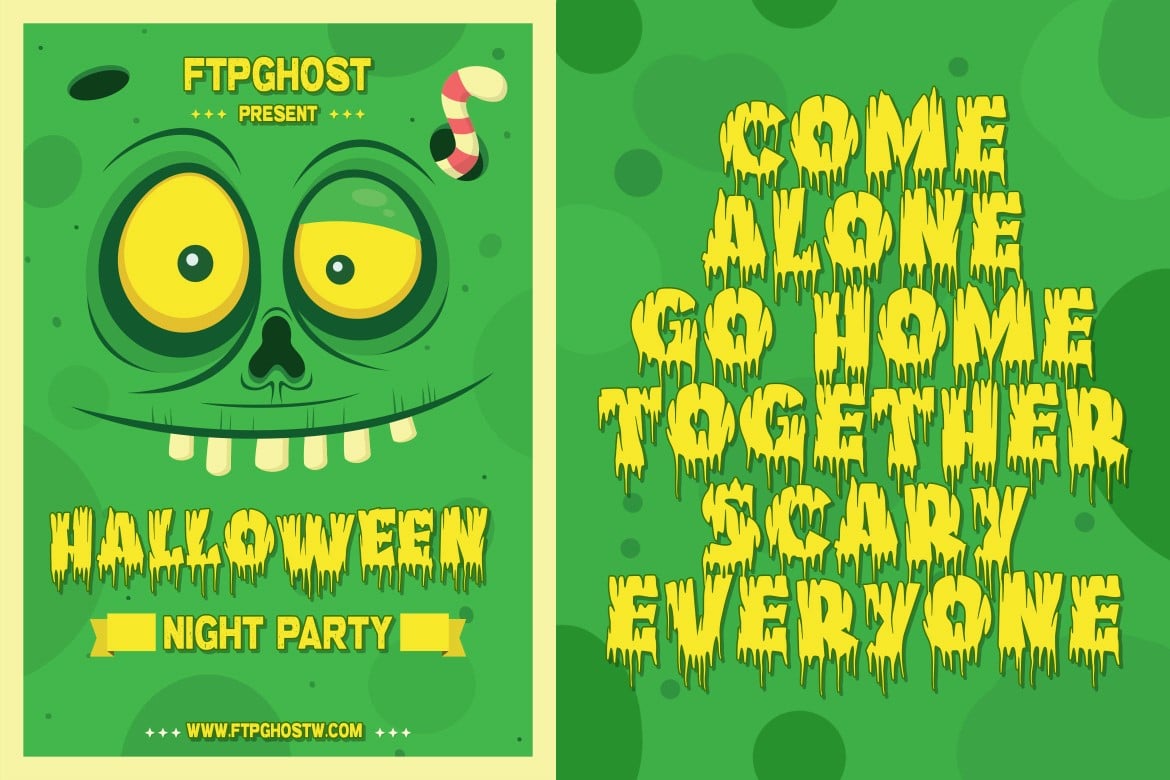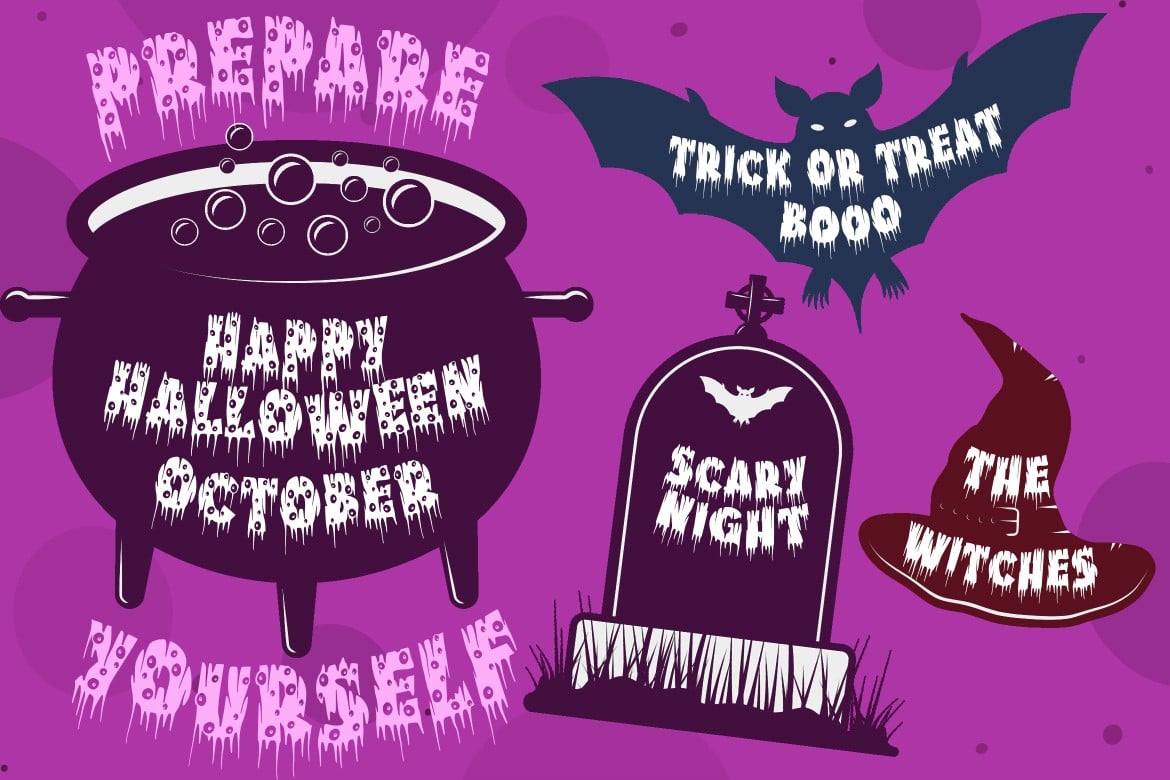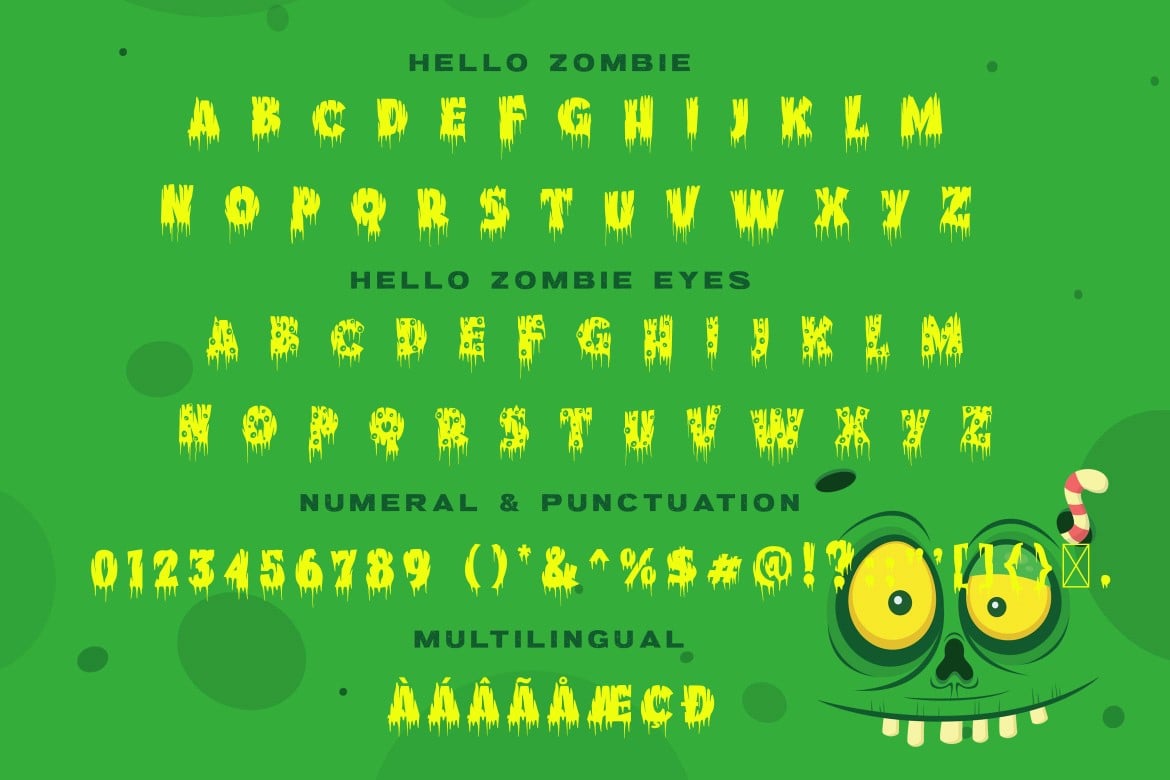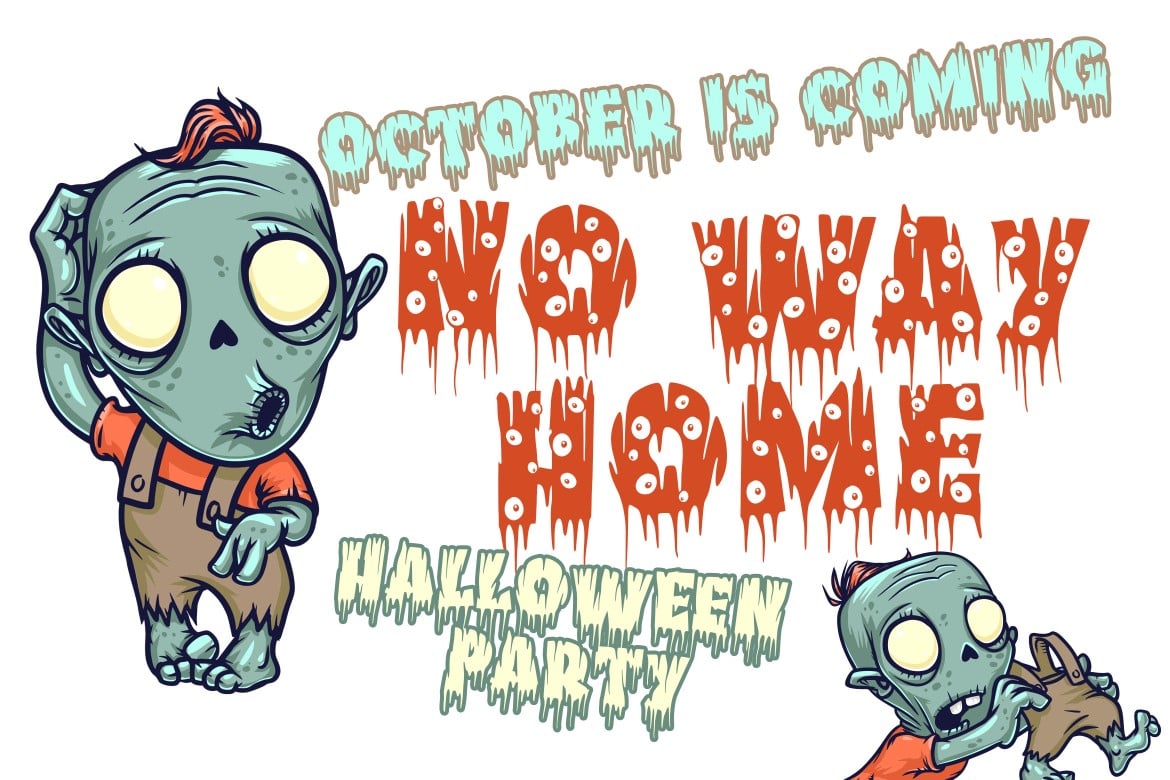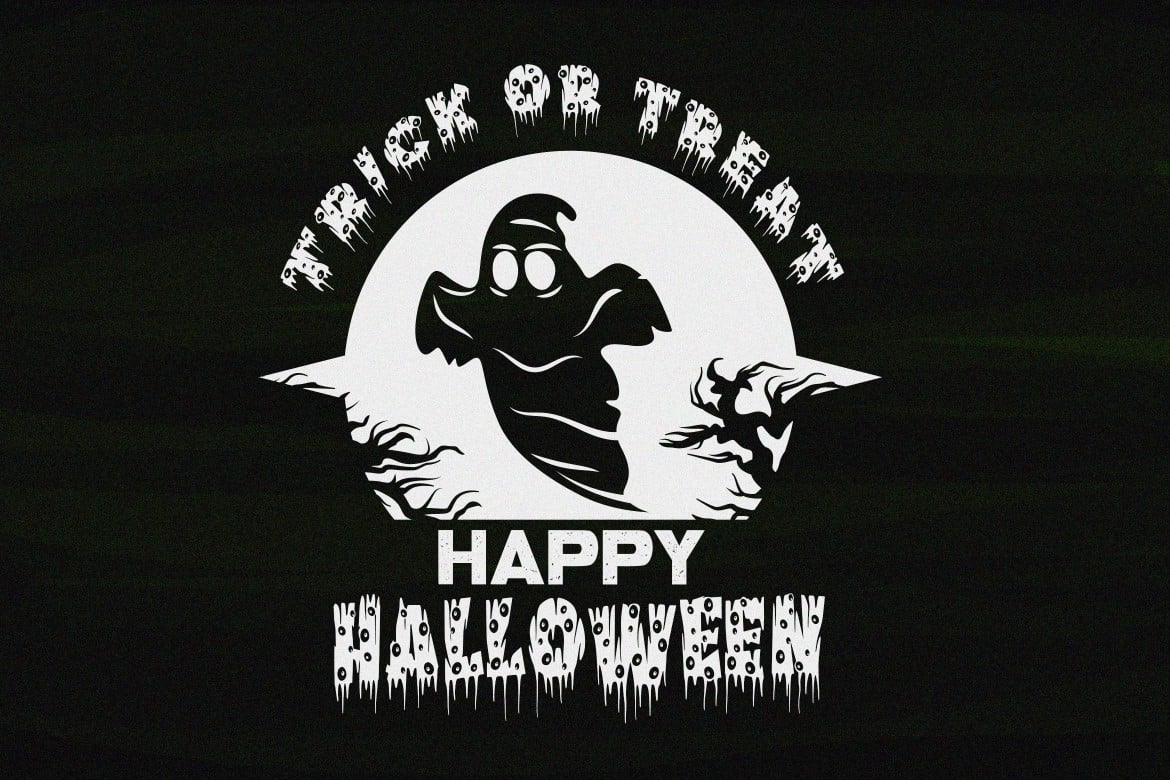
Hello Zombie Horror Font
Hello Zombie is special font made for horror moment like halloween. Comes with 2 style, Hello Zombie and Hello Zombie Eyes.
- Standar Ligature
- Multilingual Support : ÀÁÂÃÄÅÇÐÈÉÊËÌÍÎÏÑØÒÓÔÕÖÙÜÚÛÝŸỲŸÆŒßÞþ